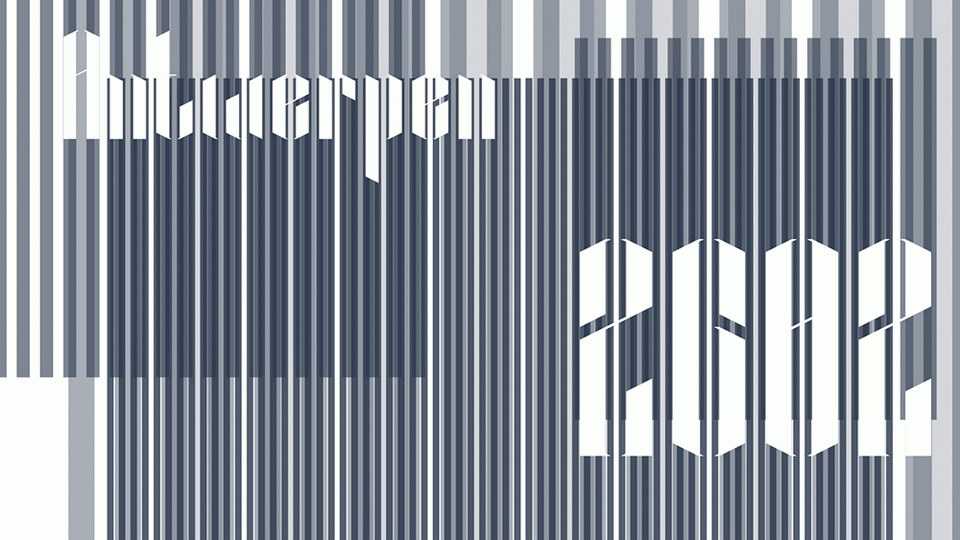
Download Antwerp font, a high contrast typeface depicts the different cultures living together but apart in Antwerp. Its vertical appearance refers to the sometimes narrow-minded people and closed nature of people.
Designer: Thijs Meulendijks